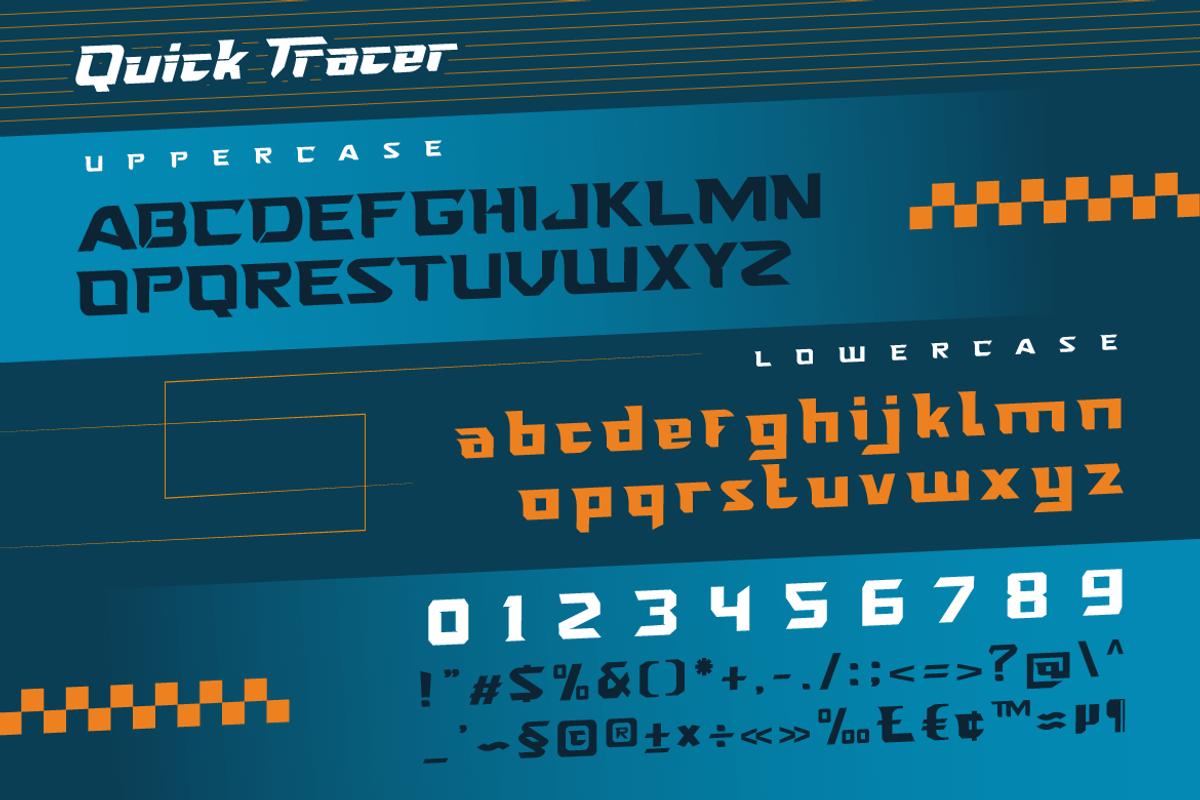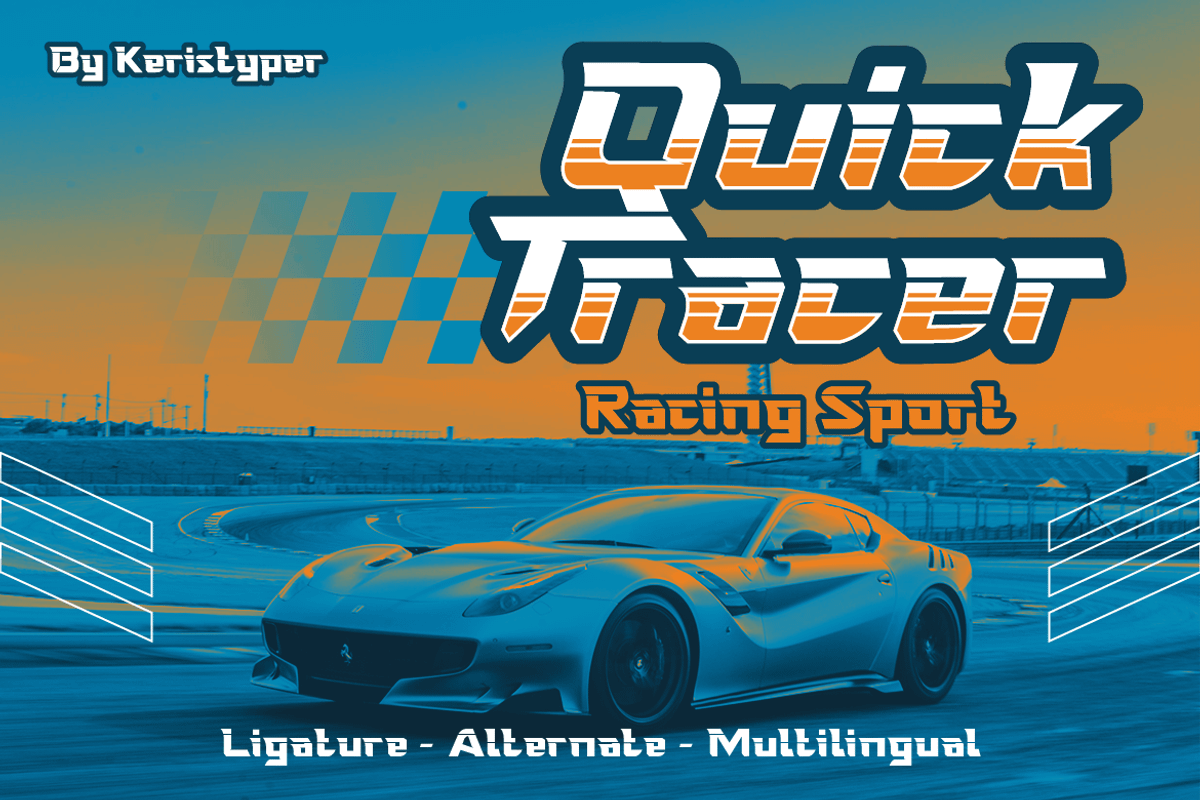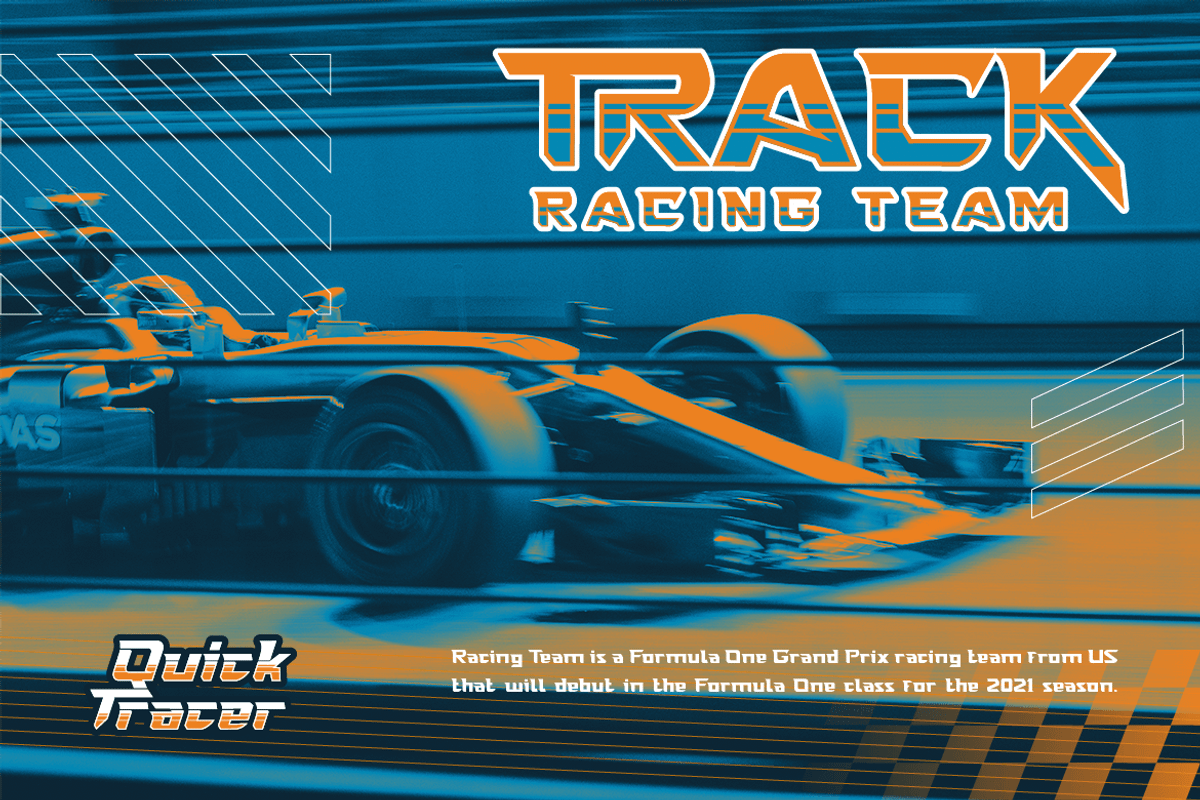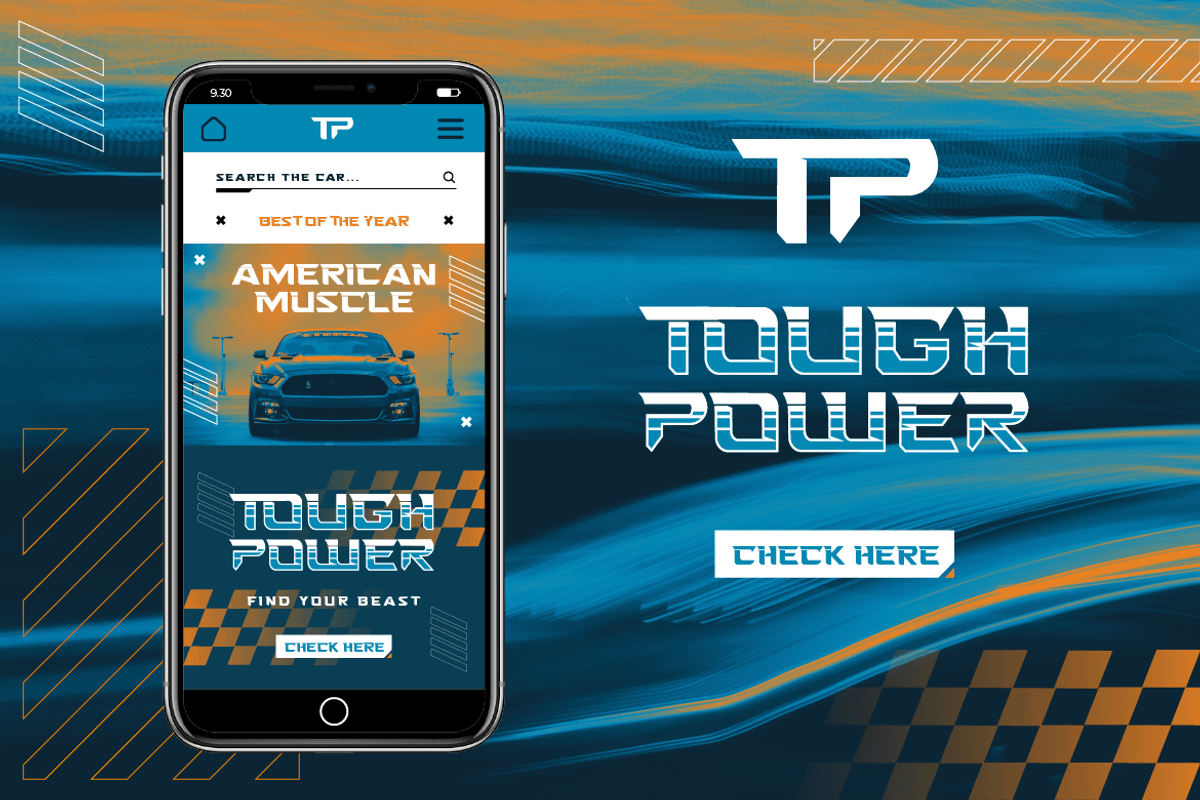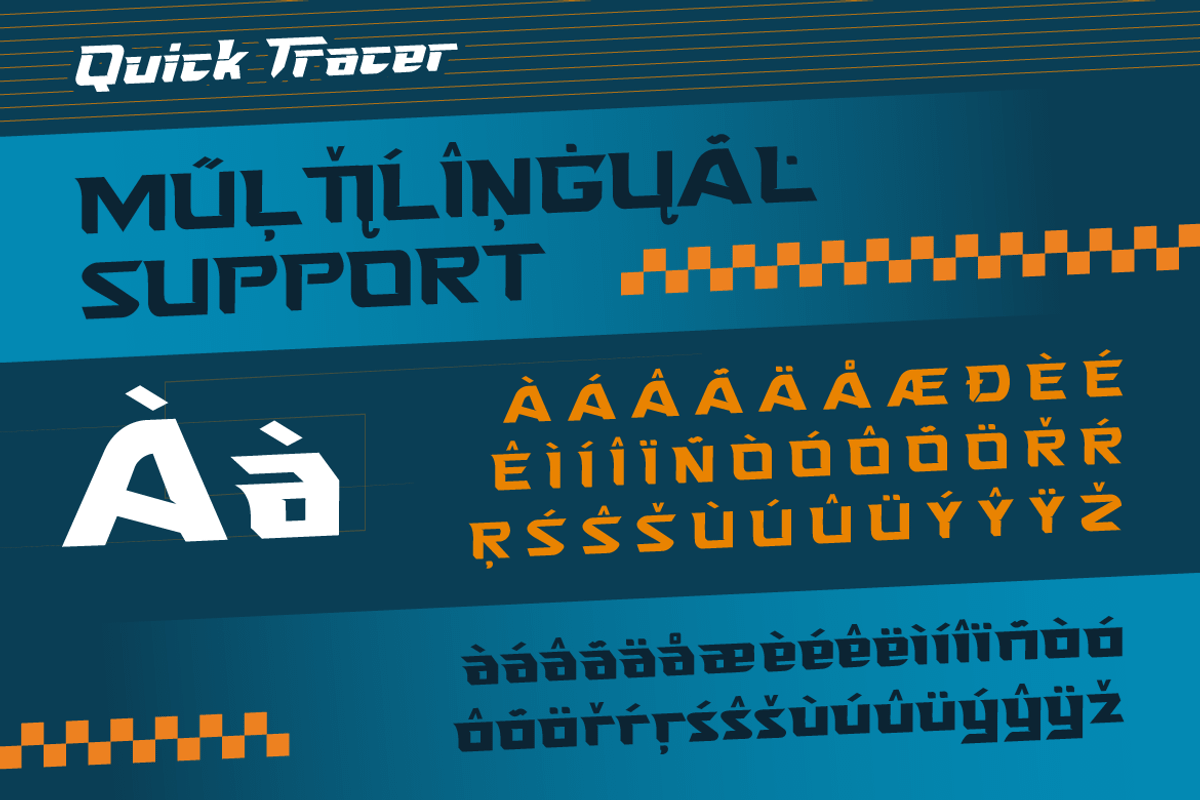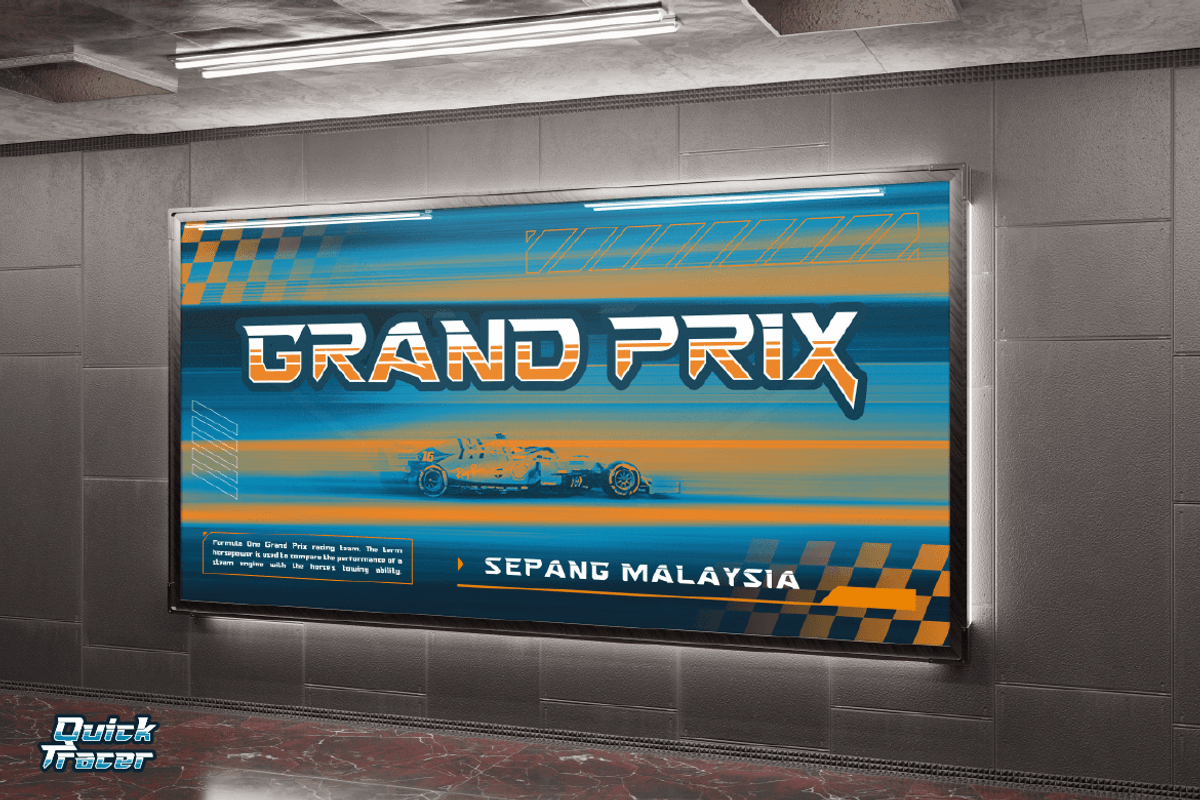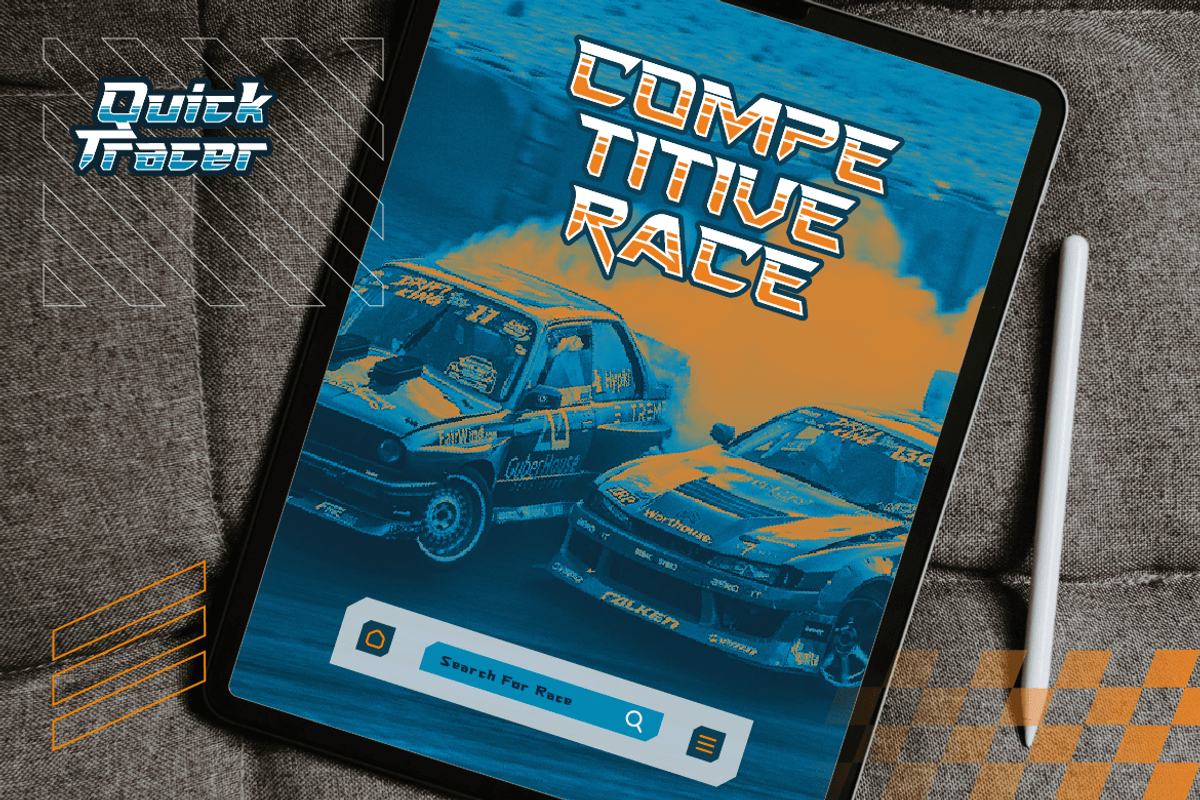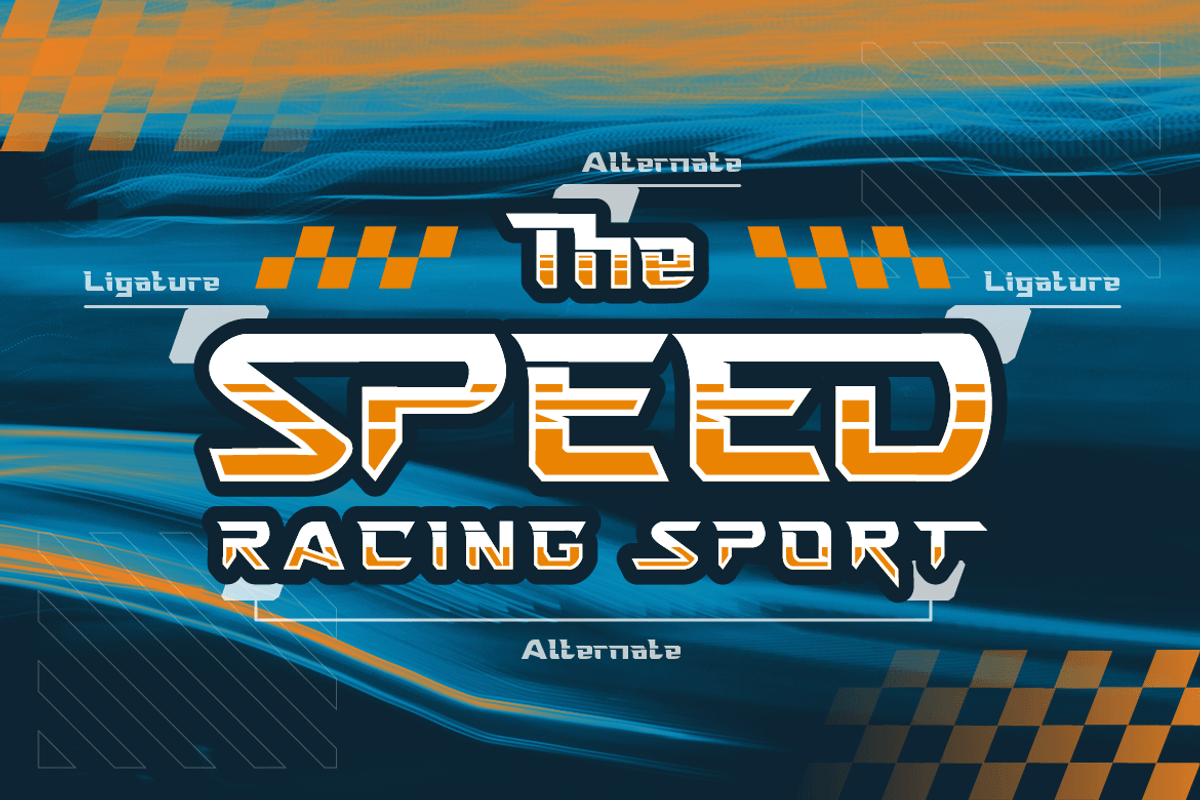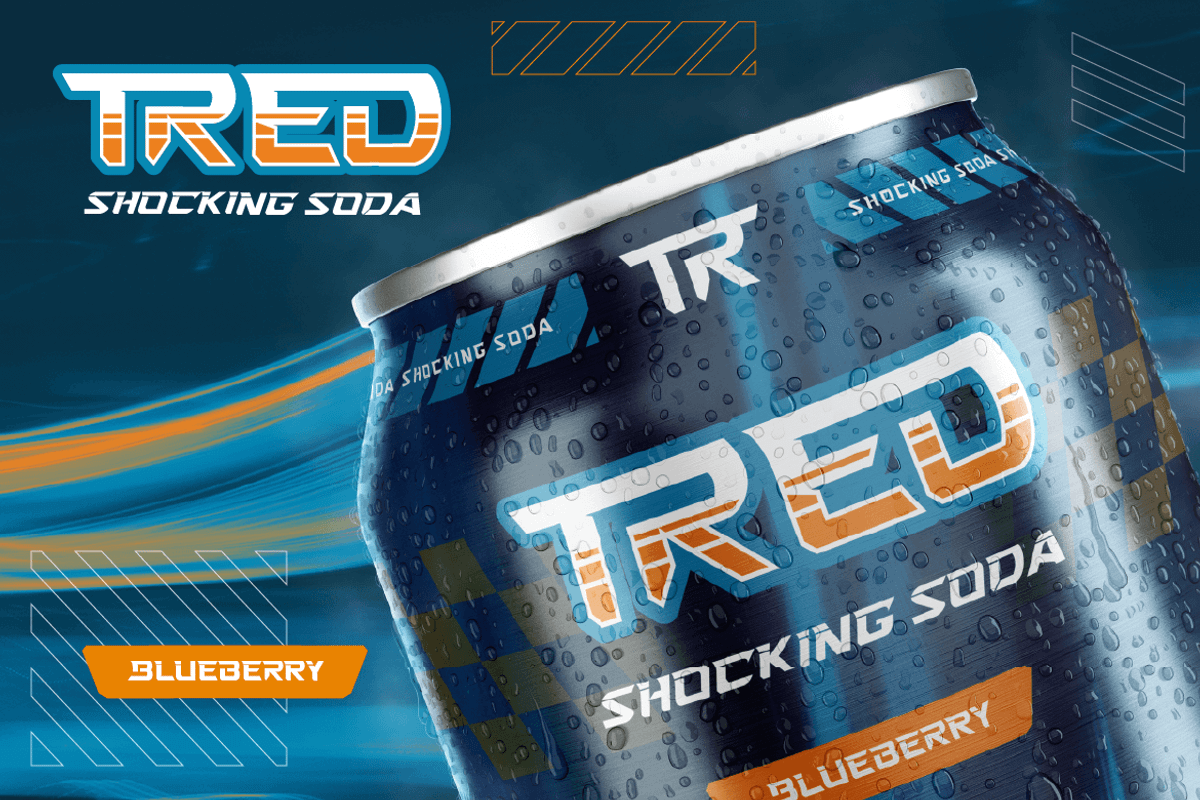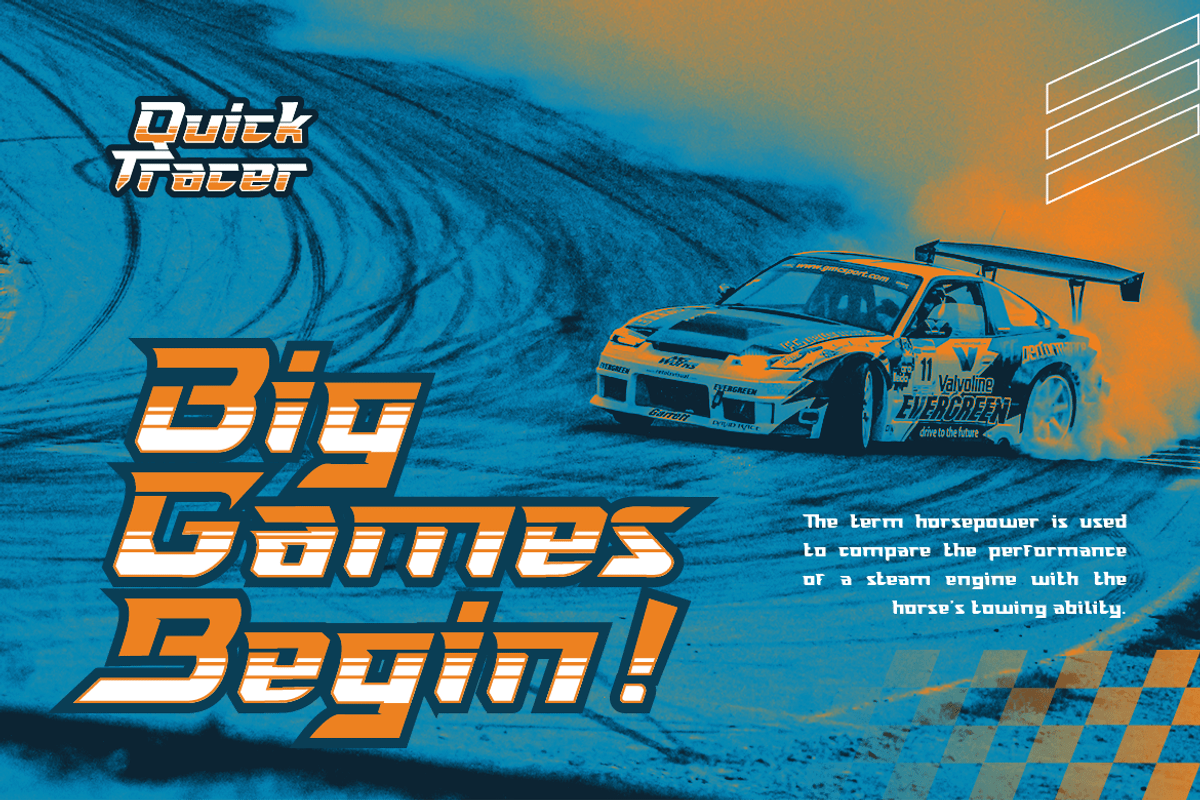
Quick Tracer
introduce Quick Tracer font with sporty modern cutouts and dynamic tilt. Ideal for fast car racing sports titles, running matches, cycling, automotive, and other modern dynamic monograms or texts. This font is good for logo design, Social media, Movie Titles, Books Titles, short text even long text letters, and good for your secondary text font with sans or serif.
- Standard Uppercase & Lowercase
- Multilingual : ä ö ü Ä Ö Ü ß ¿ ¡
- Alternate & Ligature